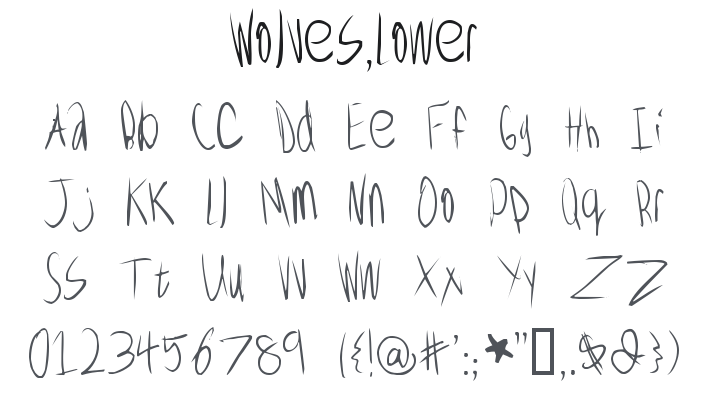
Wolves, Lower Font
About Wolves, Lower
Wolves, Lower (Caps, Lower, Numbers, Most Punctuation, Some Special) is a more rapid version of my handwriting using a quill pen. Works for headlines or text, though it is messy!